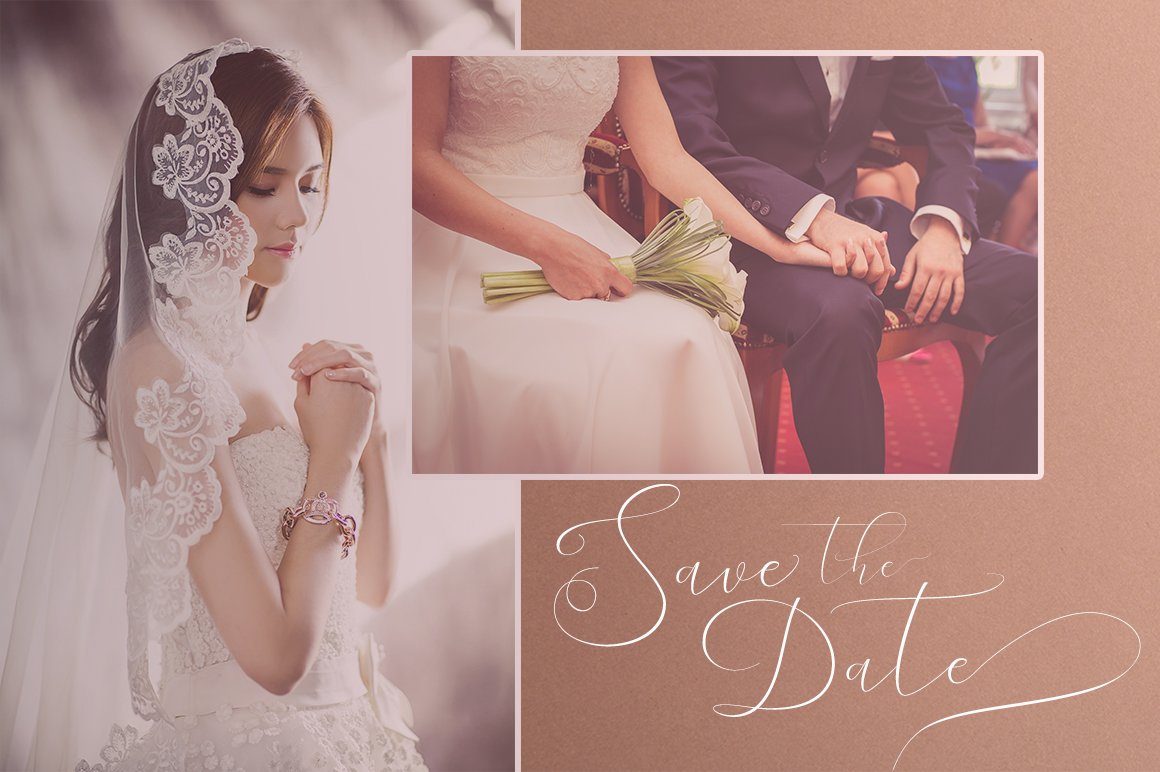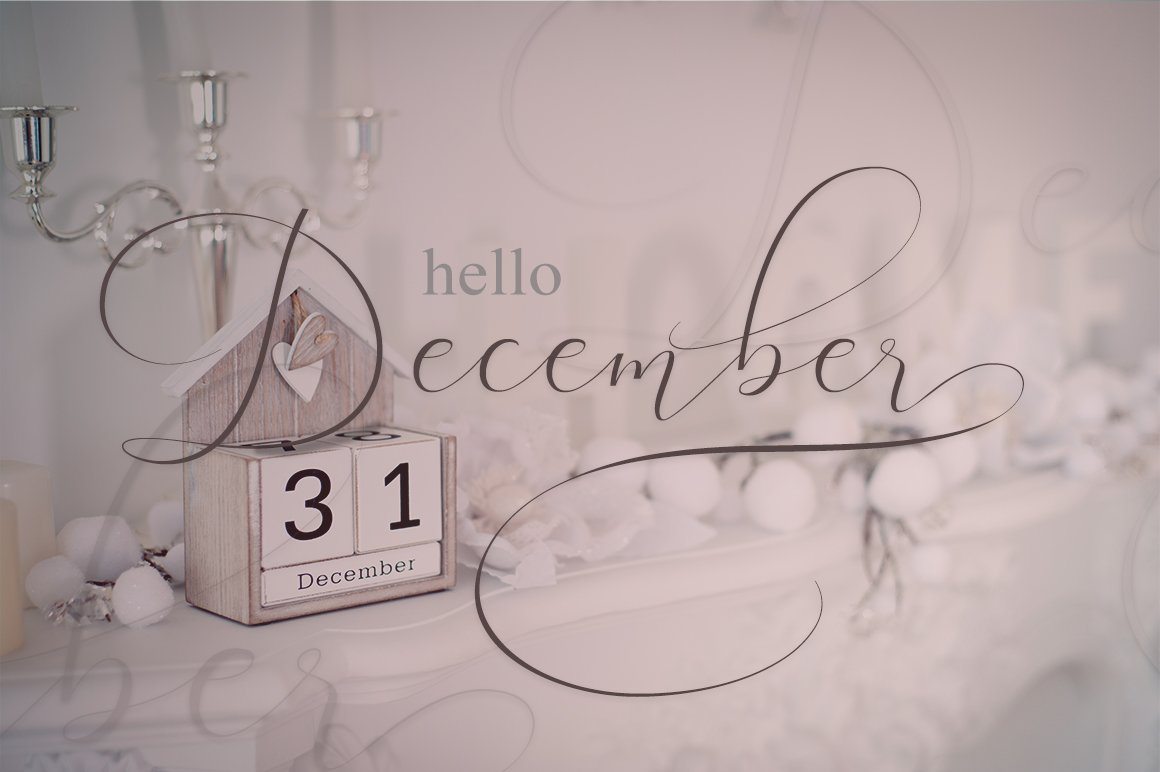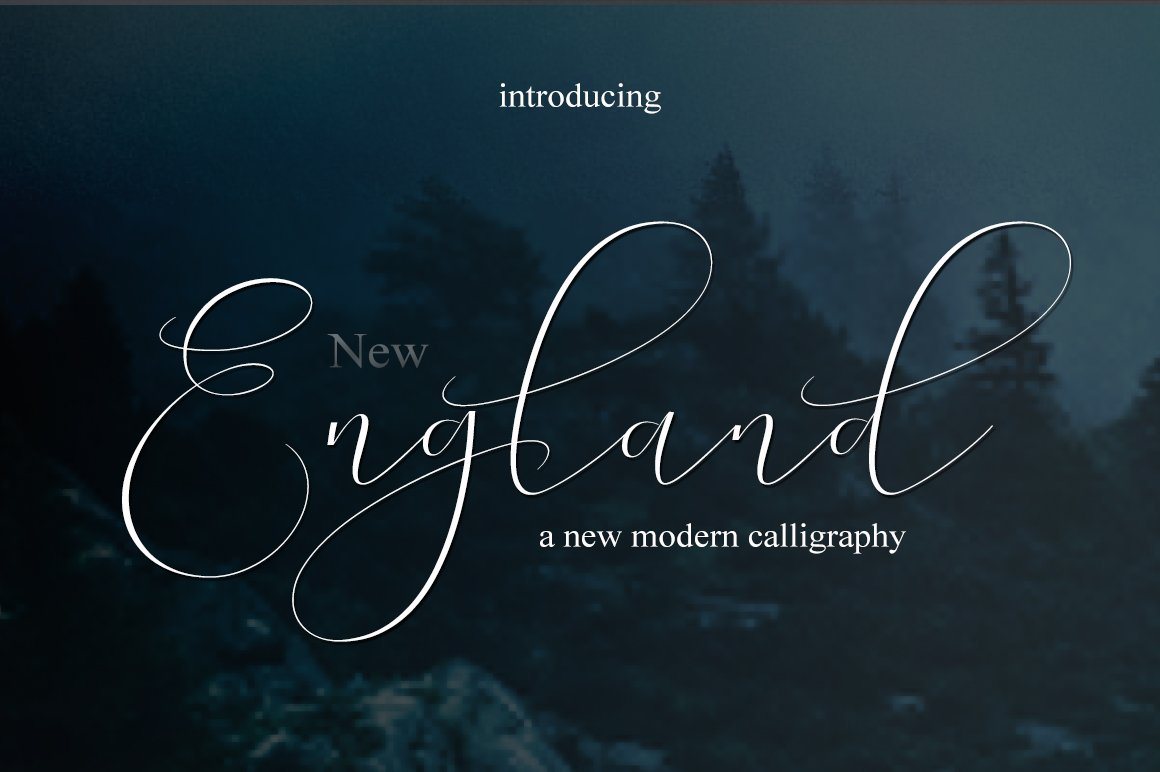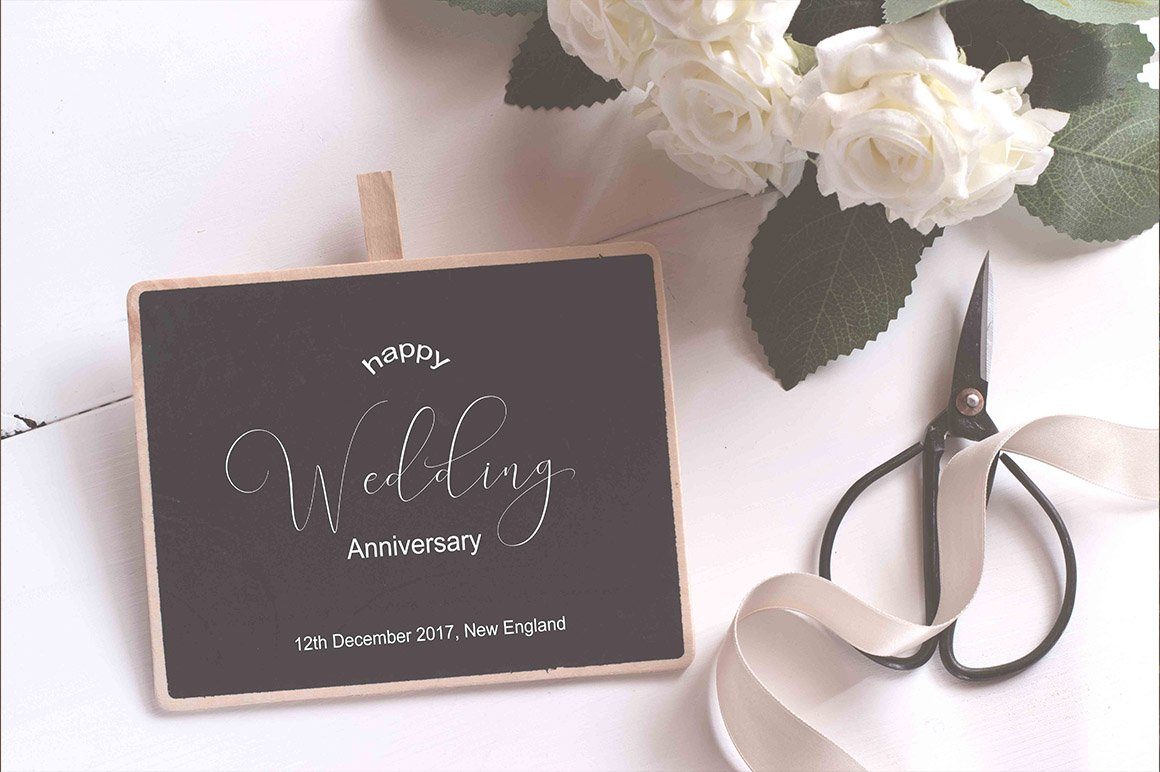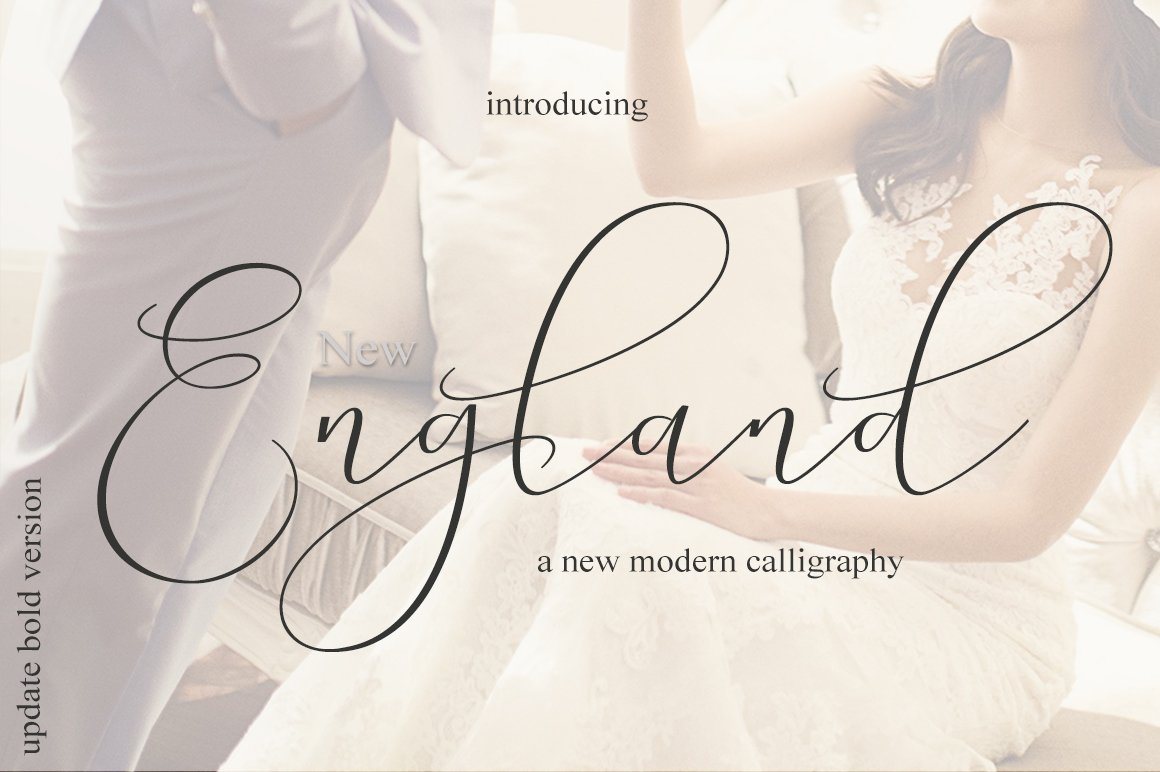
About New England
New England Script is a modern calligraphy font with the current handwriting style, this font is perfect for branding, wedding invites, magazines, mugs, business cards, quotes, posters, and more, you can try first if you want to buy this font. New England Script is equipped with 670 glyphs. and by having many of these glyphs there will be able to choose the letters according to your likes, lots of variations and options for each letter, so you can customize on your design choices. with pleasure and happiness, in this font package you will get: New England Regular TTF New England Regular OTF New England Bold TTF New England Bold OTF New England Thin TTF New England Slant OTF to use a variety of flying machines, you need a program that supports OpenType features such as Adobe Photoshop Cs / Adobe Photoshop CC, Adobe Illustrator CS / Adobe Illustrator CC, Adobe Indesign and Corel Draw and many more programs that support OpenType. If you do not have a program that supports OpenType, you can access all the alternate glyphs using Font Book (Mac) or Character Map (Windows) if you have any question, do not hesitate to contact me by email  Thanks and happy designing đŸ™‚ Thank You for purchase! New England Script is a modern calligraphy font with the current handwriting style, this font is perfect for branding, wedding invites, magazines, mugs, business cards, quotes, posters, and more, you can try first if you want to buy this font. New England Script is equipped with 670 glyphs. and by having many of these glyphs there will be able to choose the letters according to your likes, lots of variations and options for each letter, so you can customize on your design choices. with pleasure and happiness, in this font package you will get: New England Regular TTF New England Regular OTF New England Bold TTF New England Bold OTF New England Thin TTF New England Slant OTF to use a variety of flying machines, you need a program that supports OpenType features such as Adobe Photoshop Cs / Adobe Photoshop CC, Adobe Illustrator CS / Adobe Illustrator CC, Adobe Indesign and Corel Draw and many more programs that support OpenType. If you do not have a program that supports OpenType, you can access all the alternate glyphs using Font Book (Mac) or Character Map (Windows) if you have any question, do not hesitate to contact me by email  Thanks and happy designing đŸ™‚ Thank You for purchase!